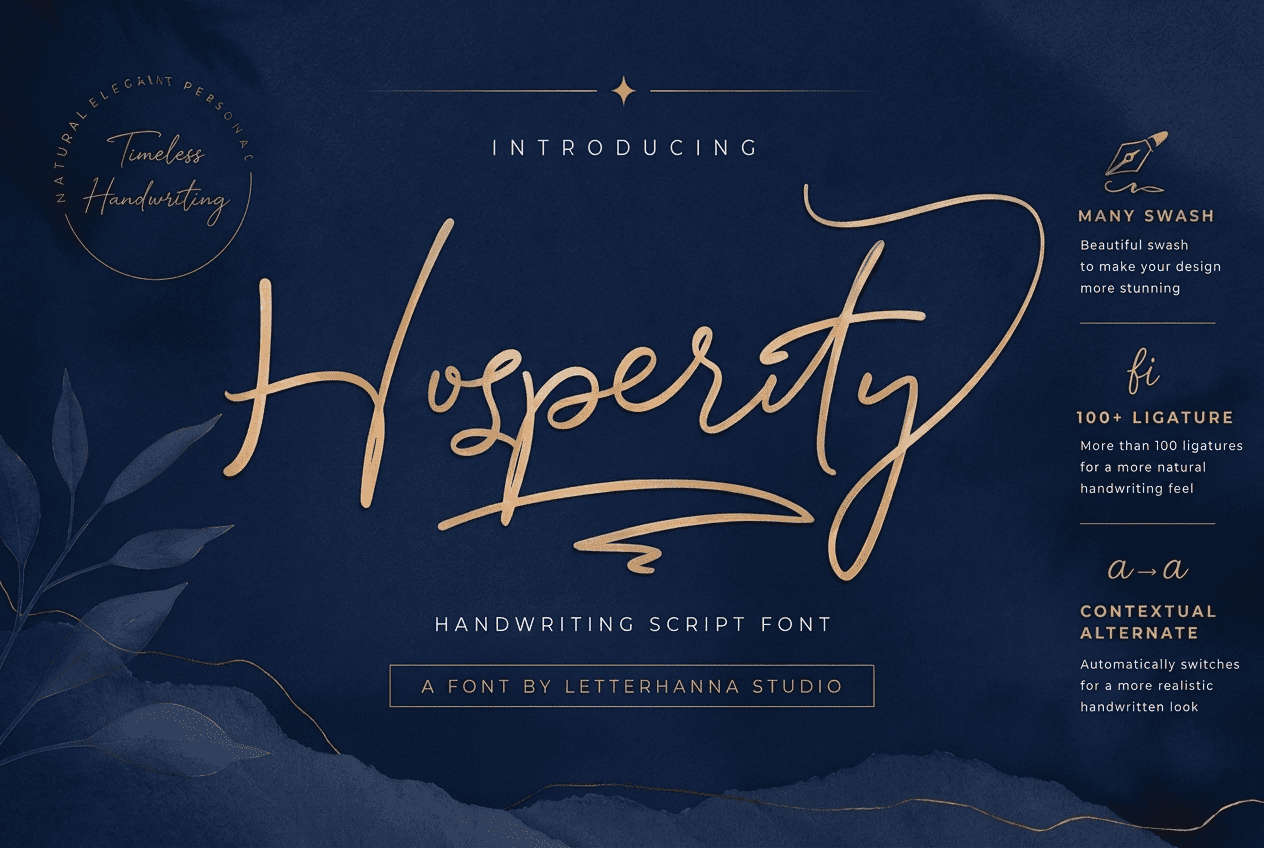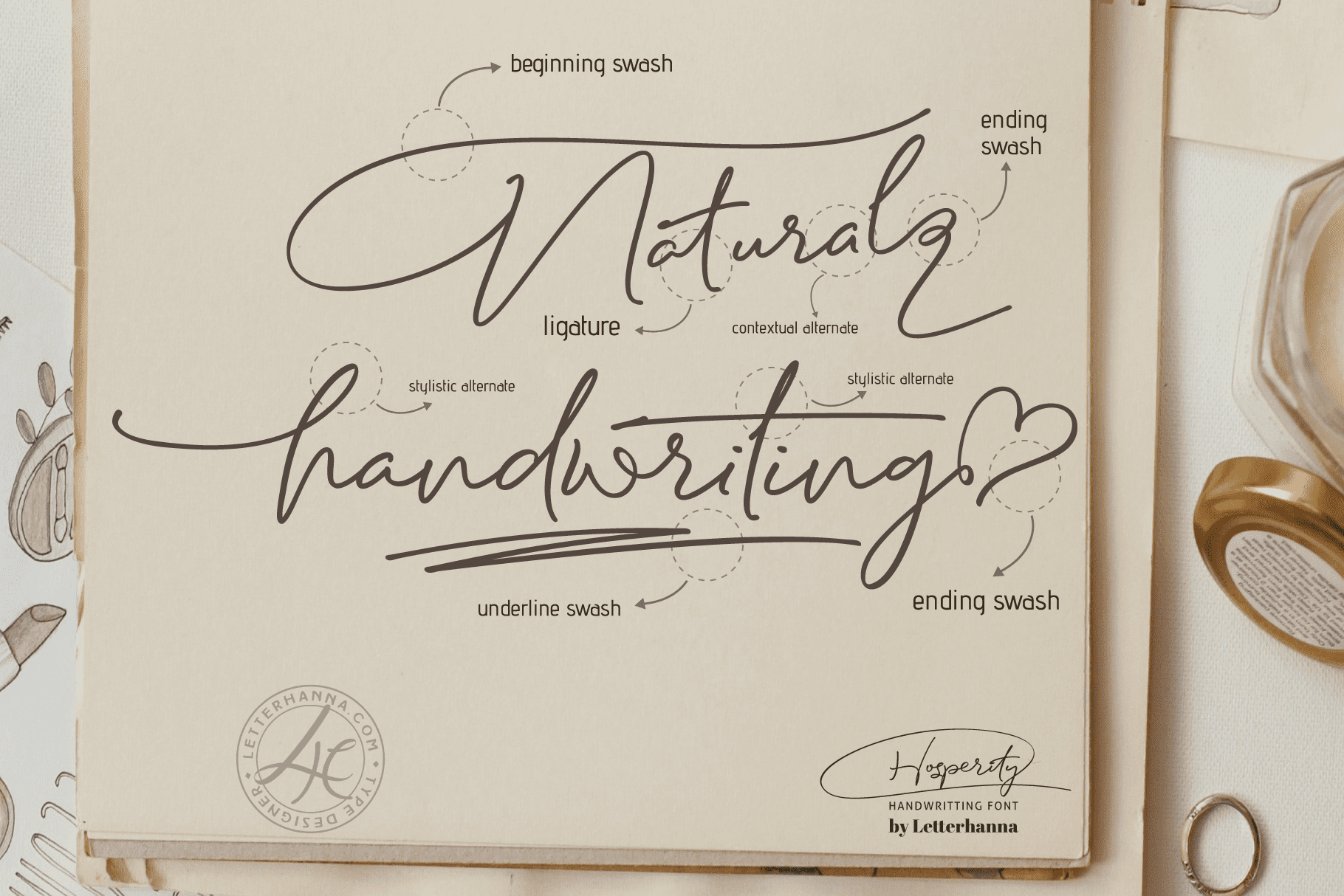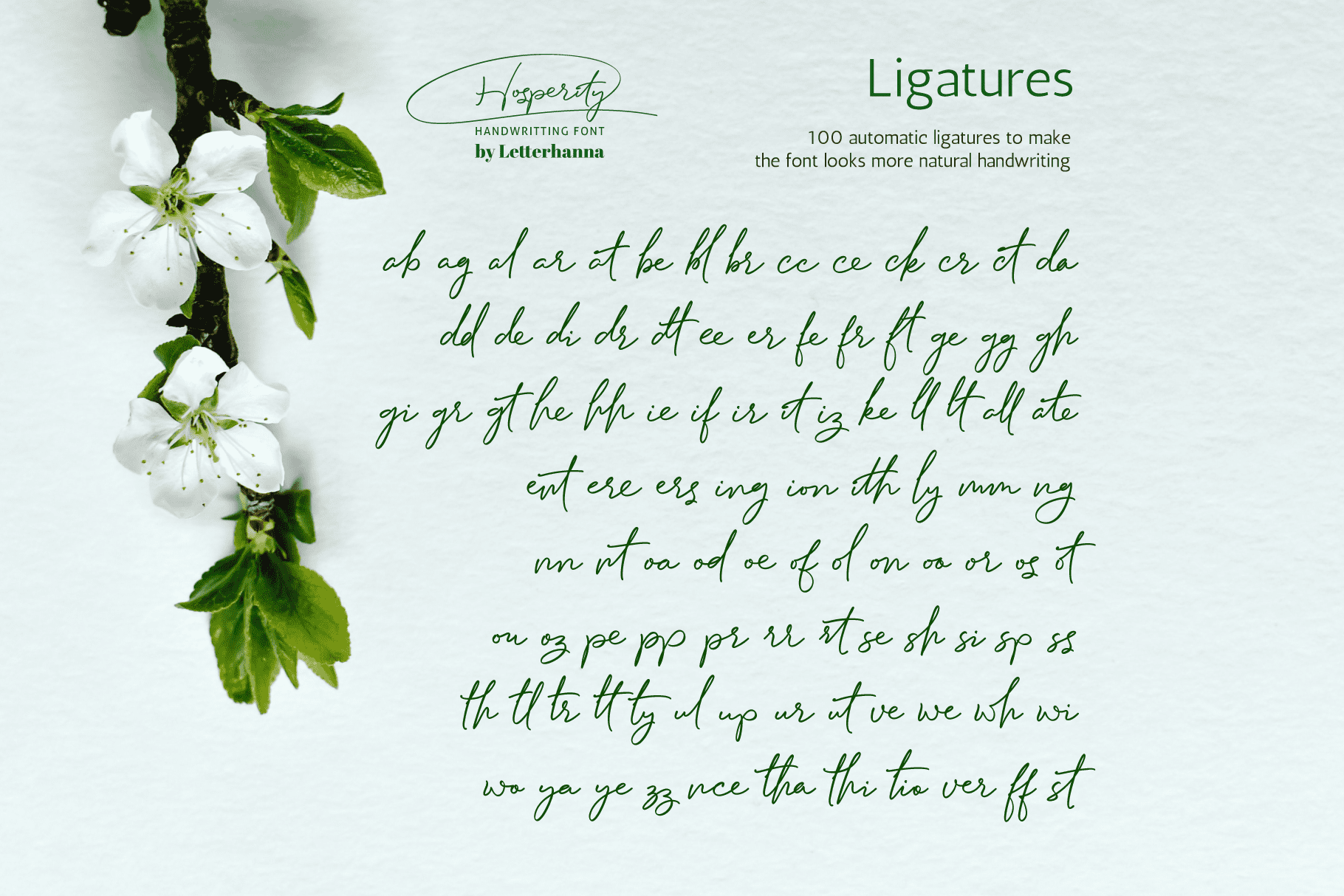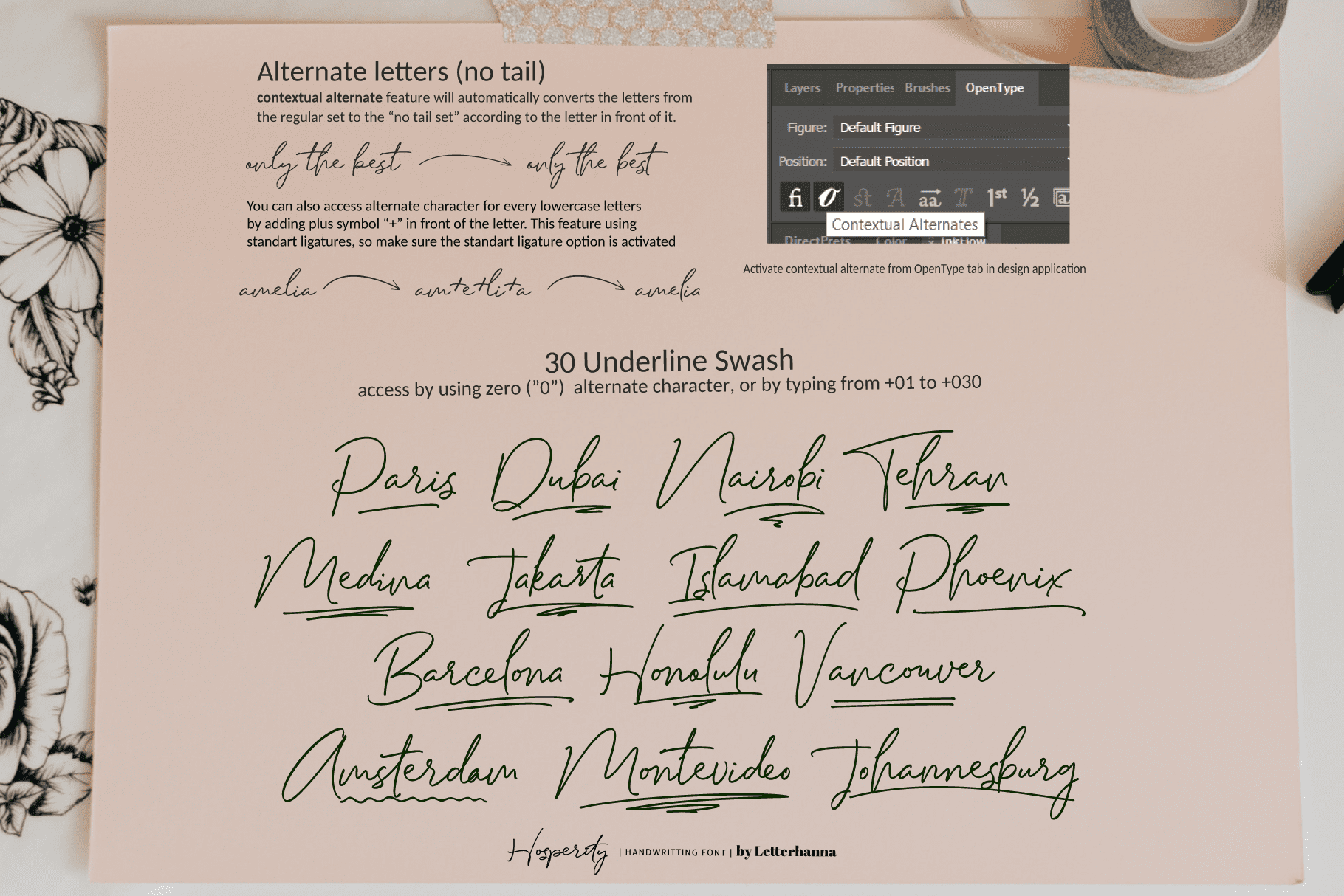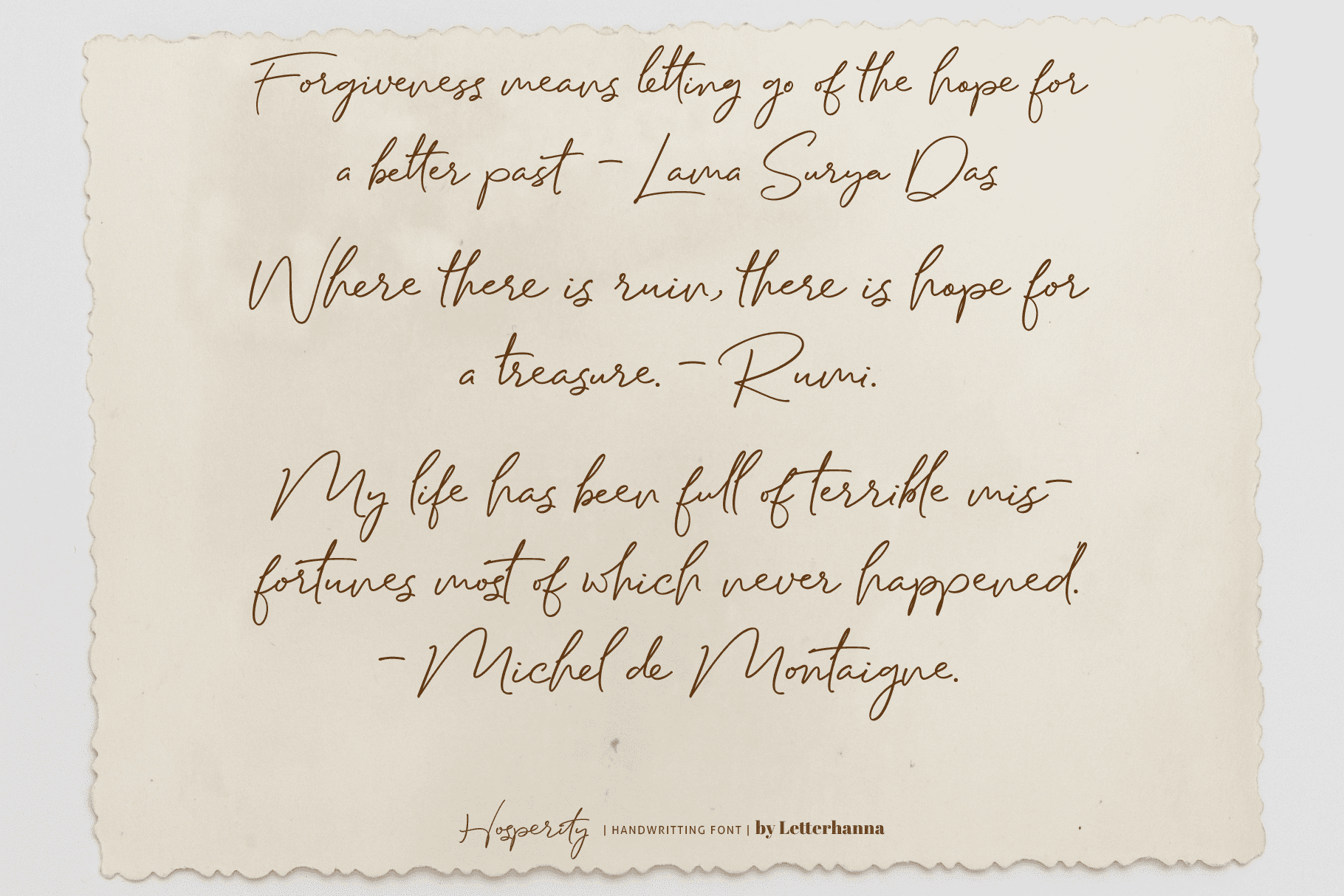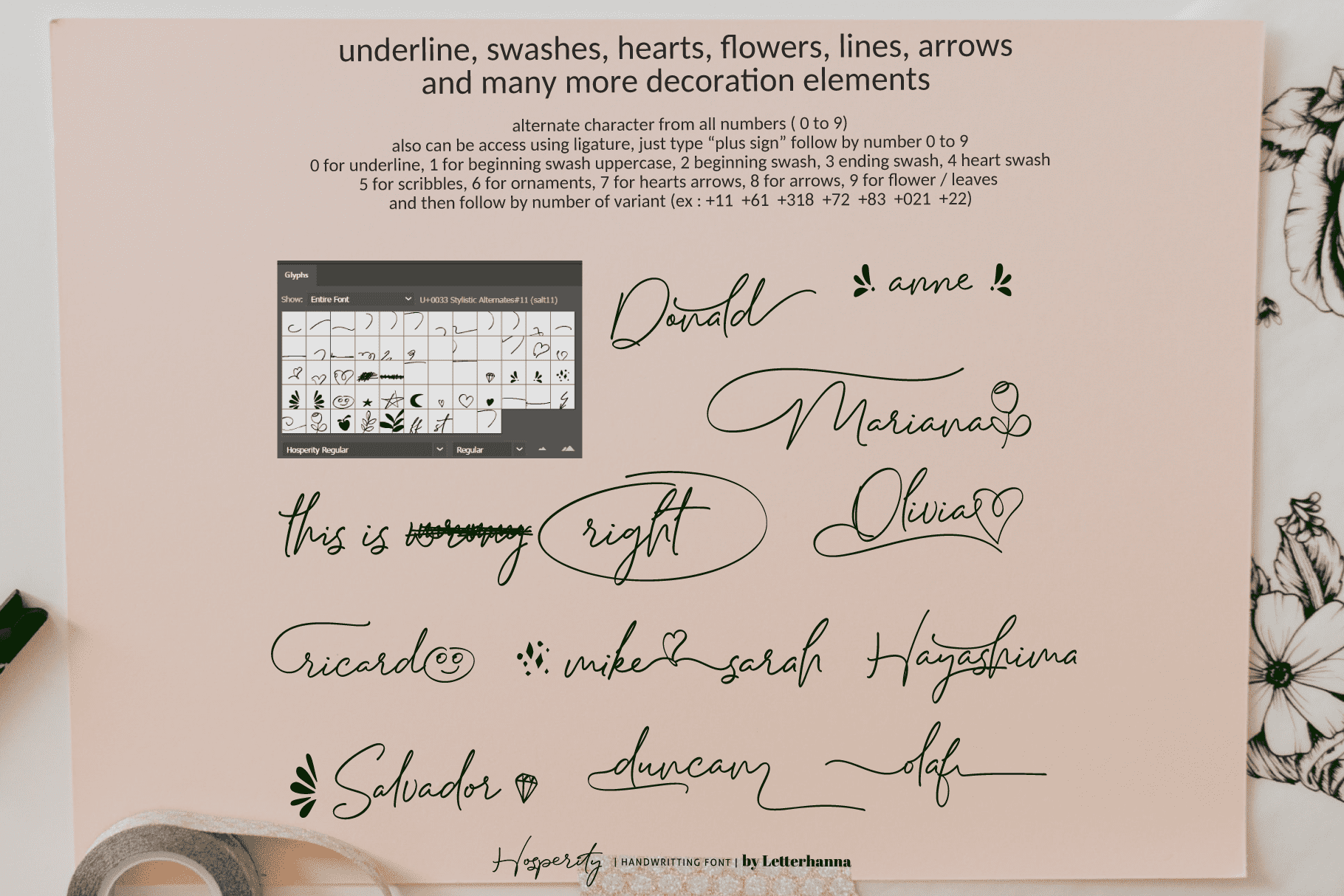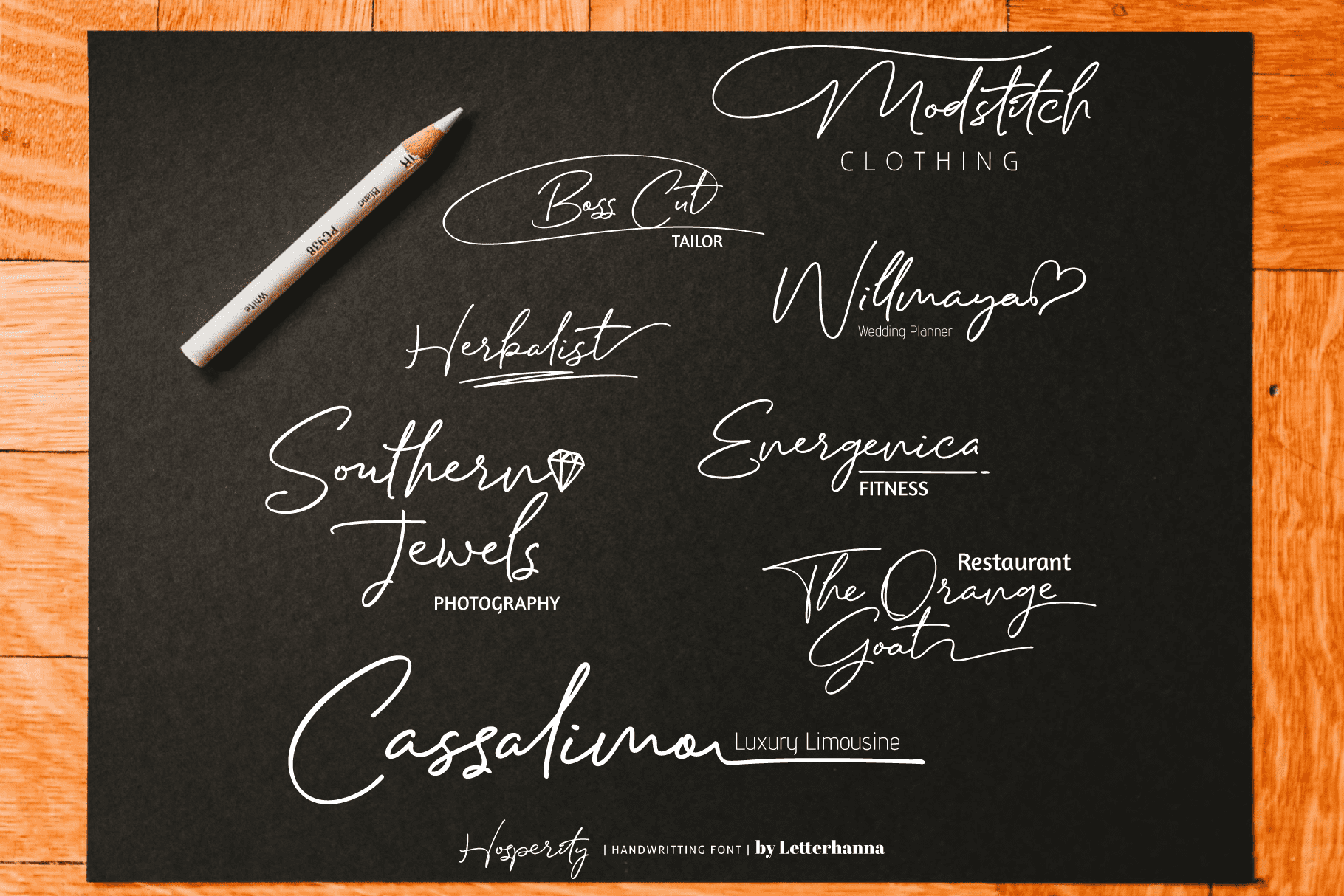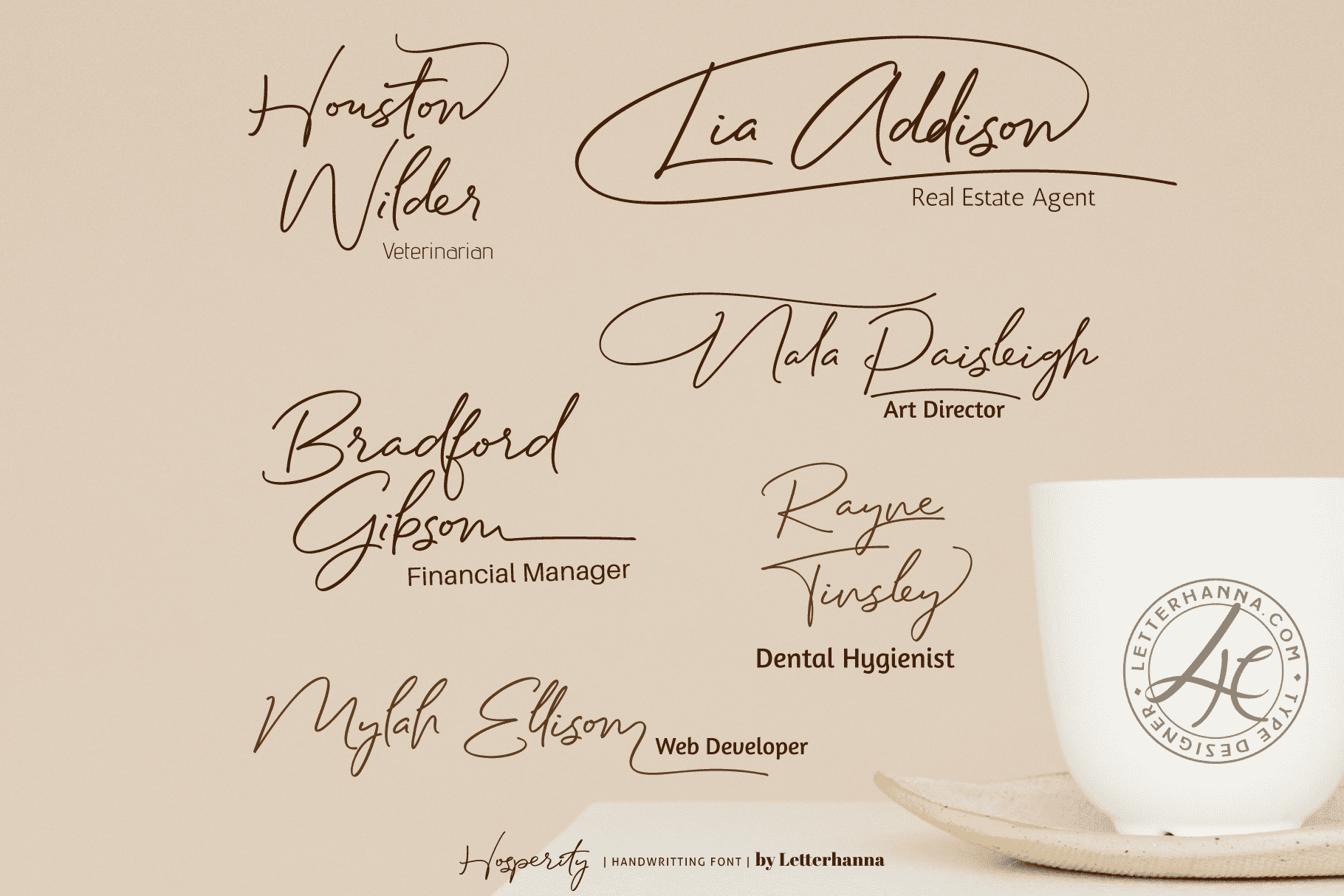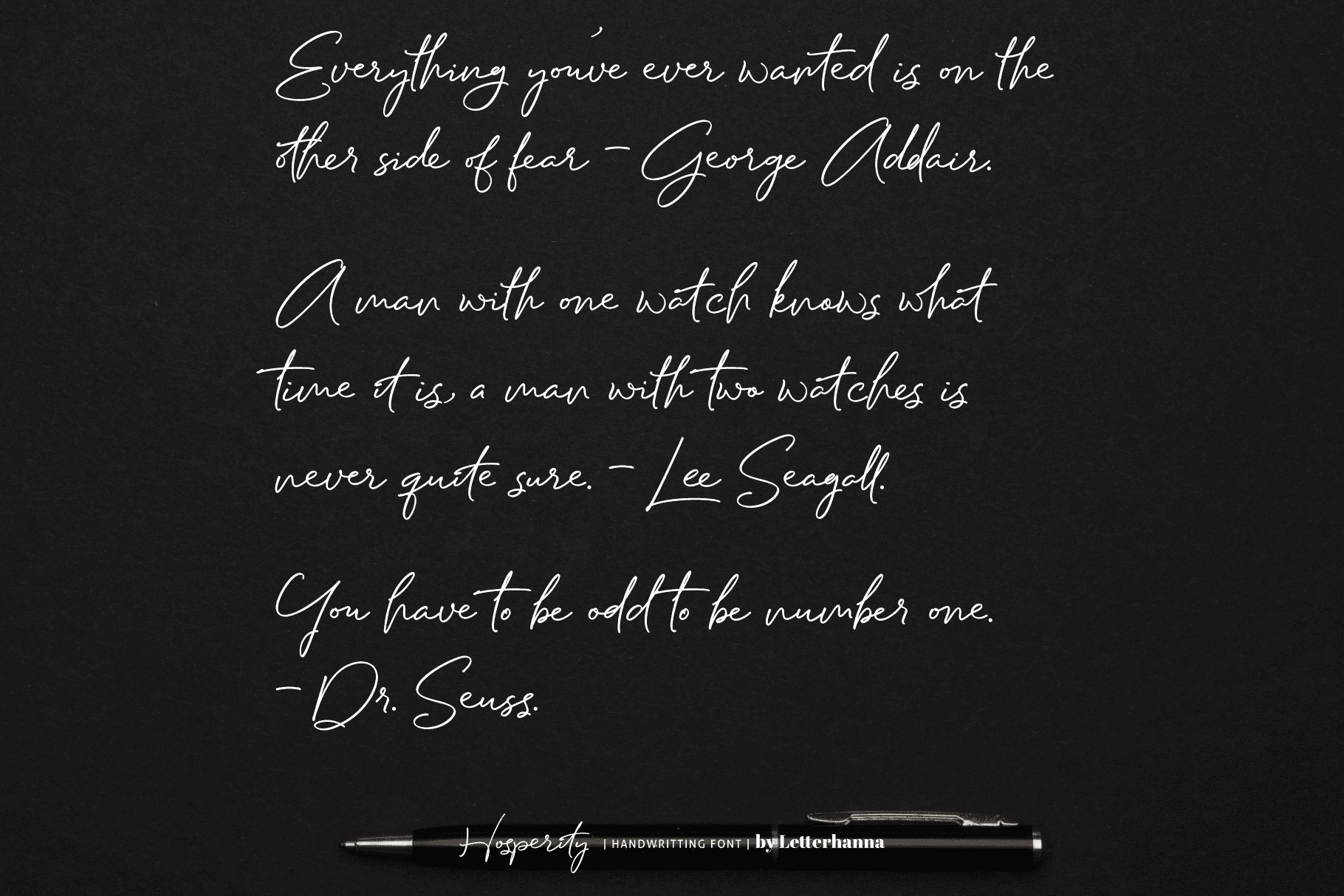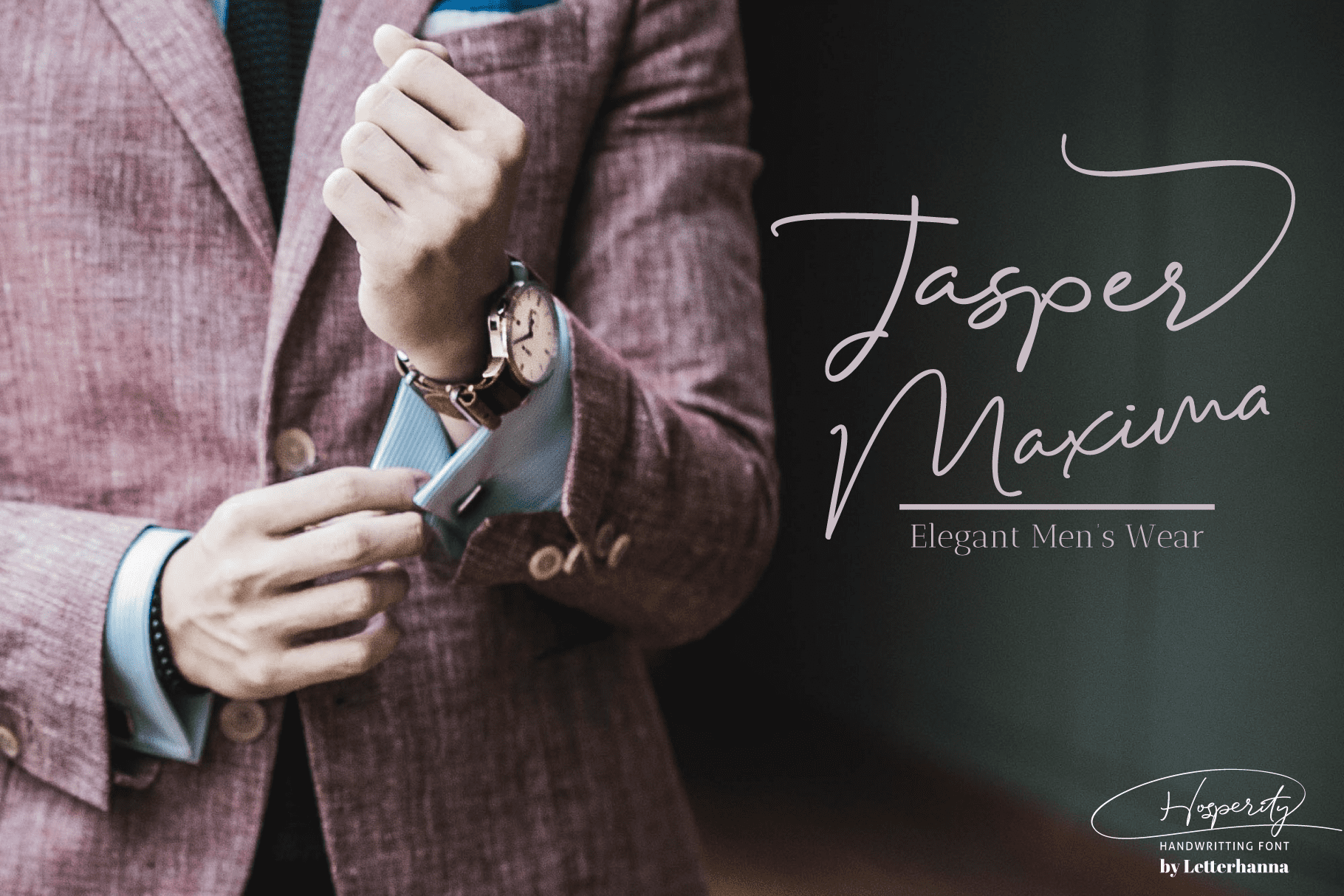
We are excited to introduce our latest product: Hosperity Handwriting Font. Our Handwriting Font is a unique product that brings a personal touch to your designs. With this font, you can give your projects a handcrafted look that is sure to stand out from the rest.
Hosperity Font perfect for any occasion. You can use it for invitations, posters, logos, or any other design project that requires a personal touch. With its natural and authentic feel, our Handwriting Font will give your projects a warm and welcoming touch.
Hosperity Font was created to look as close to a natural handwritten script as possible by including over 100 natural-looking opentype ligatures, and a full set of lowercase alternates. There are also 30 underline swashes included and lot more ornaments, arrow, scribbles, etc.
Easy access all alternate glyphs, swashes, ornaments and underlines just by using ligatures, you can try yourself in the font preview tool.
You can get alternate glyphs for all 26 lowercase character using ligature features, just Type plus symbol ( + ) in front of the letters that you want to change to the alternate short tail glyph. Type plus a ( +a ) than you can get alternate short tail glyph for the letter a.
Some letters have more than one alternate, just add “number two” character (2) behind the letters. For example, type +f2, +g2, +h2, +t2 or +j2
You can get various special glyphs by using ligature features. Combine “plus symbol” and number 0 to 9, 0 for underline, 1 for uppercase beginning swash, 2 for lowercase beginning swash, 3 for ending swash, 4 for heart swash, 5 for scribbles, 6 for ornaments, 7 for hearts, 8 for arrows, 9 for flower or leaves. Then follow by another number for variations
Below is the complete list of combination for each special characters :
- Underline swashes = Type +01, +02, +03, +04, +05, +06,Β +07, +08, +09, +010, +011, +012, +013, +014, +015, +016, +017, +018, +09, +020, +021, +022, +023, +024, +025, +026, +027, +028, +029, +030
- Uppercase beginning swash = Type +11, +12
- Lowercase beginning swash = Type +21, +22, +23, +24, +25, +26, +27, +28, +29
- Lowercase ending/tail swash = Type +31, +32, +33, +34, +35, +36, +37, +38, +39, +310, +311, +312, +313, +314, +315, +316, +317, +318, +319, +320
- Heart swash = Type +41, +42, +43, +44, +45, +46
- Scribbles = Type +51, +52, +53, +54, +55
- Ornaments = Type +61, +62, +63, +64, +65, +66, +67, +68, +69, +610
- Hearts = Type +71, +72, +73
- Arrows = Type +81, +82, +83, +84
- Flower / Leaves = Type +91, +92, +93, +94
– Uppercase and Lowercase letters
– Numbering and Punctuations
– Multilingual Support
– 100 Ligatures
– Beginning and ending swashes
– Underline swashes
– Stylistic alternate
– Contextual alternate
– Ornaments
– Easy access swash just by using ligatures